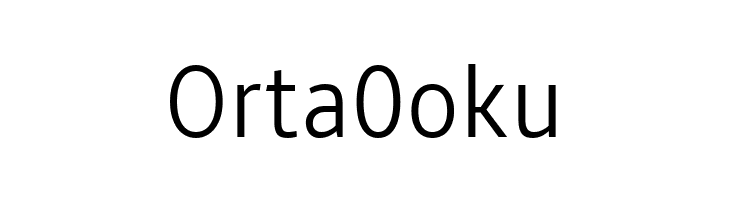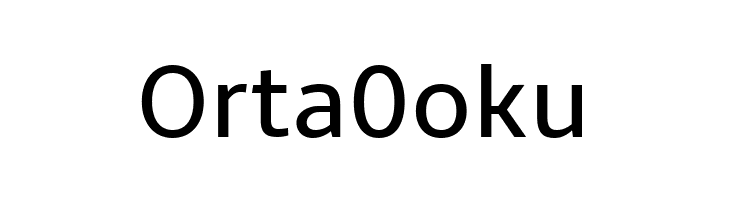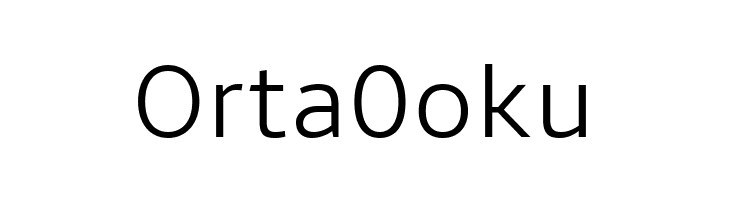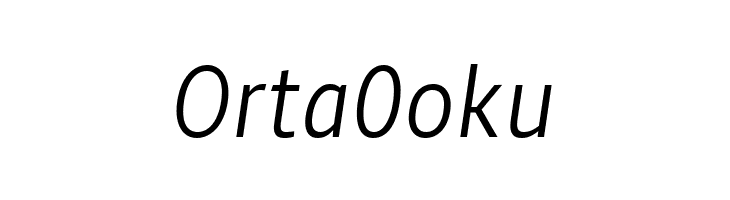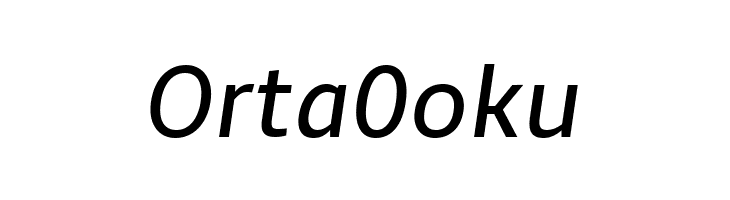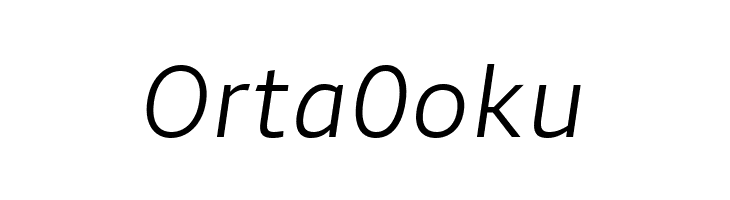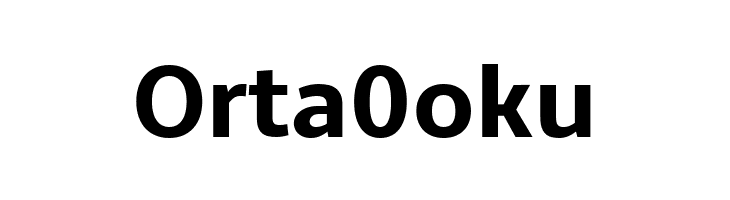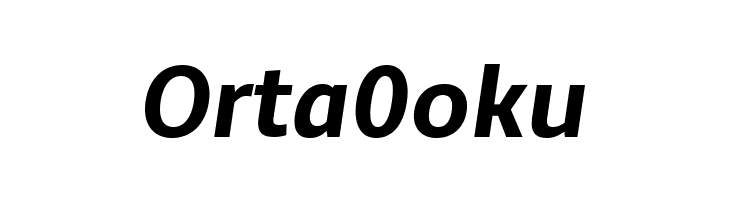
A bold, modern sans-serif font with excellent readability and versatility.
A bold, oblique sans-serif font with a modern and dynamic style.
A modern sans-serif font with an oblique slant, offering a clean and dynamic appearance.
A clean, modern sans-serif font with balanced proportions and excellent readability.
A bold, italicized font with a dynamic and modern style.
A bold, blocky font with a strong, modern presence.
A modern, rounded font with a sleek, condensed style.
A bold, distressed stencil-style font with a rugged, vintage appearance.
A bold, decorative font with a textured, artistic design.
A bold, modern font with a strong and impactful design.
A bold, textured font with a carbon fiber pattern, perfect for modern designs.
An elegant serif font with sharp serifs and high contrast strokes.
A bold, dynamic serif font with a classic and authoritative style.
A bold, decorative font with sharp angles and a modern flair.
A bold, decorative font with fluid, enclosed characters.
A bold, decorative font with intricate details and a modern flair.
A bold, decorative font with intricate patterns and a festive, carnival-inspired style.
A bold, geometric font with a modern, industrial aesthetic.
A bold, modern font with uniform stroke width and slightly condensed characters.
A bold, playful font with a cartoon-like, hand-drawn style.
A bold, 3D cartoon-style font with thick outlines and playful design.
A bold, cartoonish font with thick outlines and a playful, decorative style.
A bold, cartoonish font with wacky, hand-drawn characters.
A modern, angular font with a futuristic design.
A futuristic, geometric font with sharp angles and clean lines.
A bold, futuristic font with sharp, angular edges and a geometric structure.
A bold, futuristic font with sharp, angular edges and a sleek design.
An ornate and decorative font with bold, swirling serifs and intricate detailing.
A modern, angular font with a futuristic and sleek design.